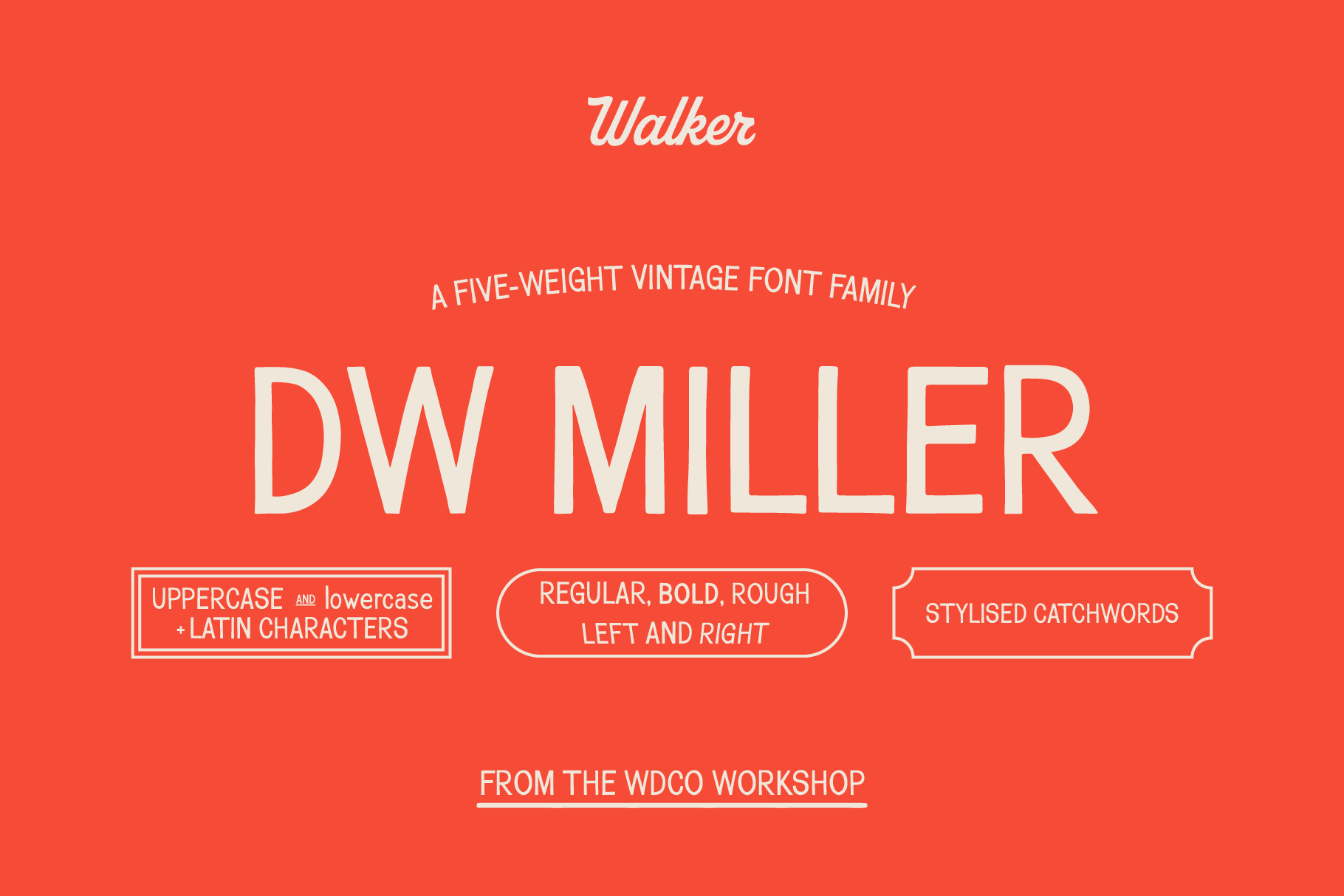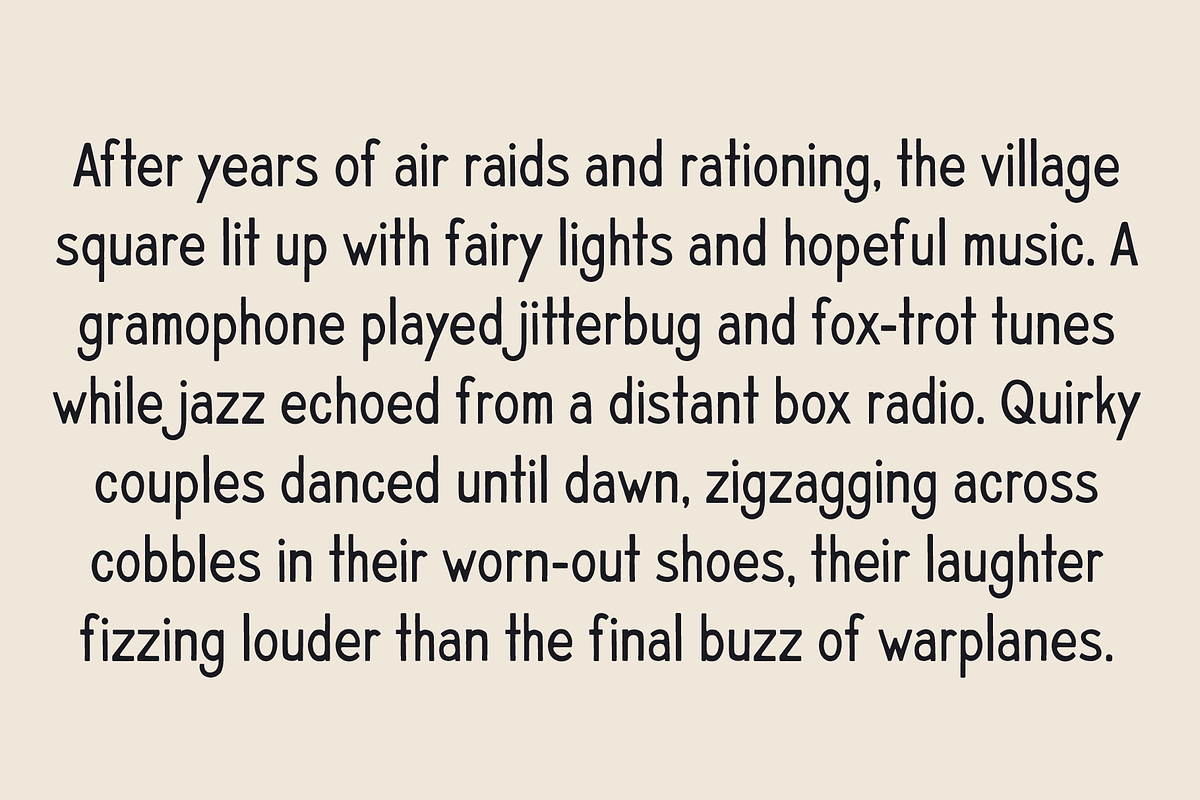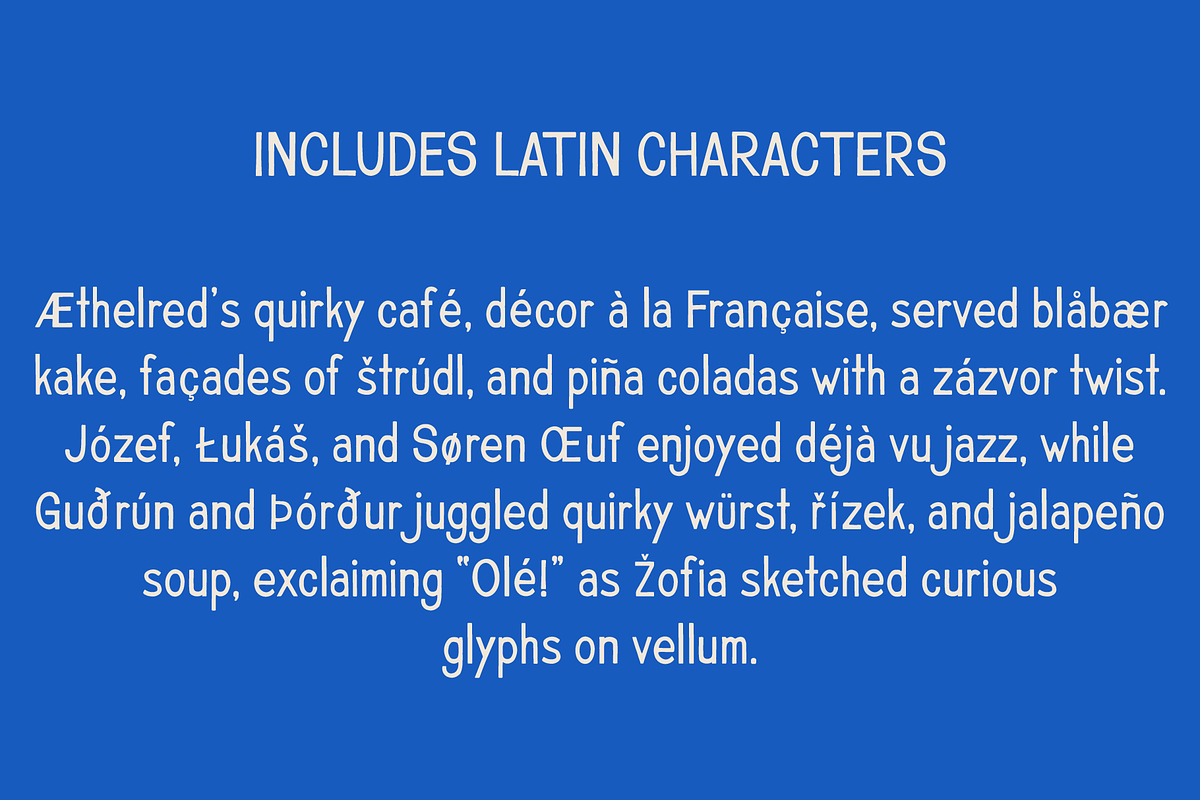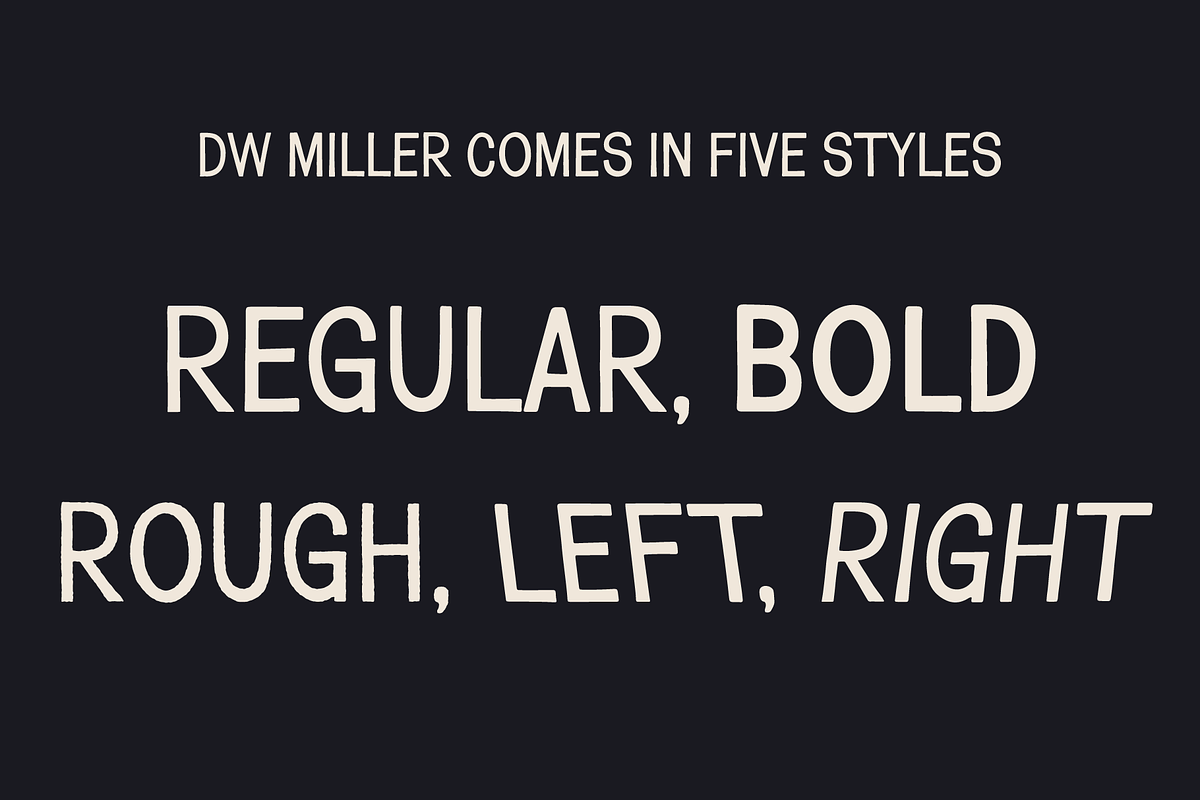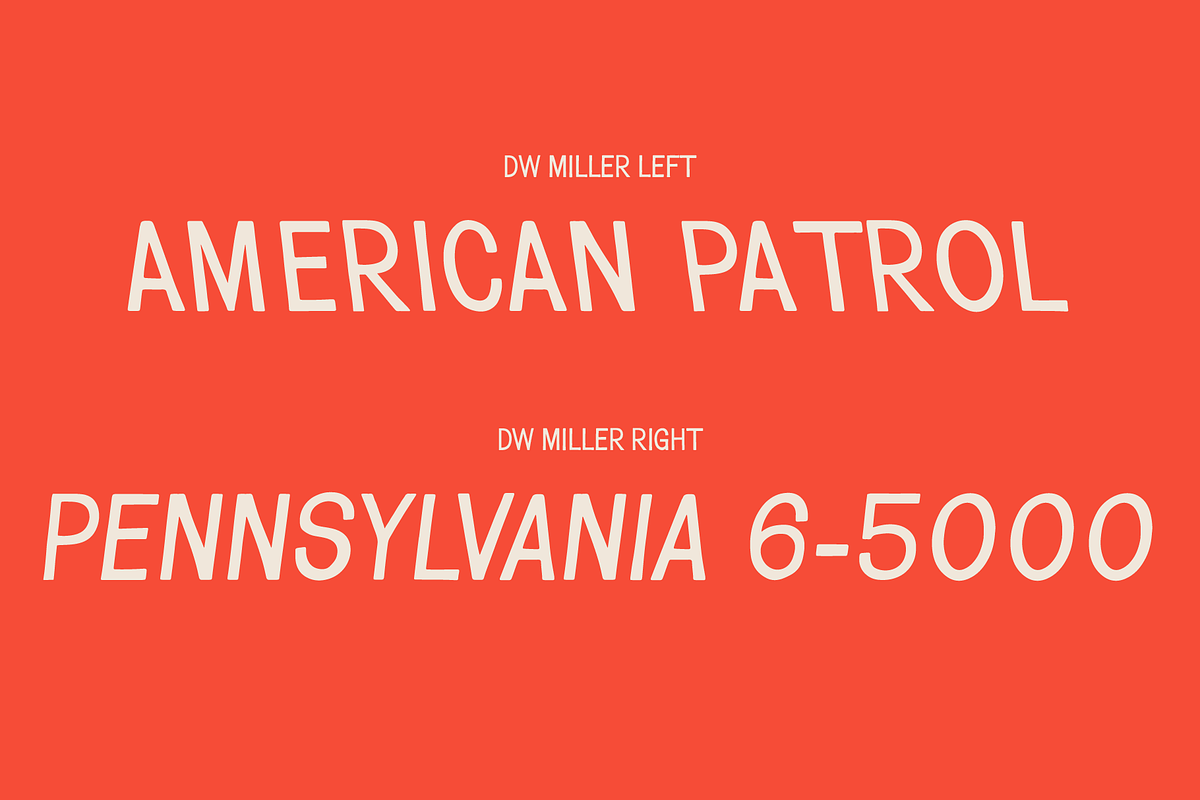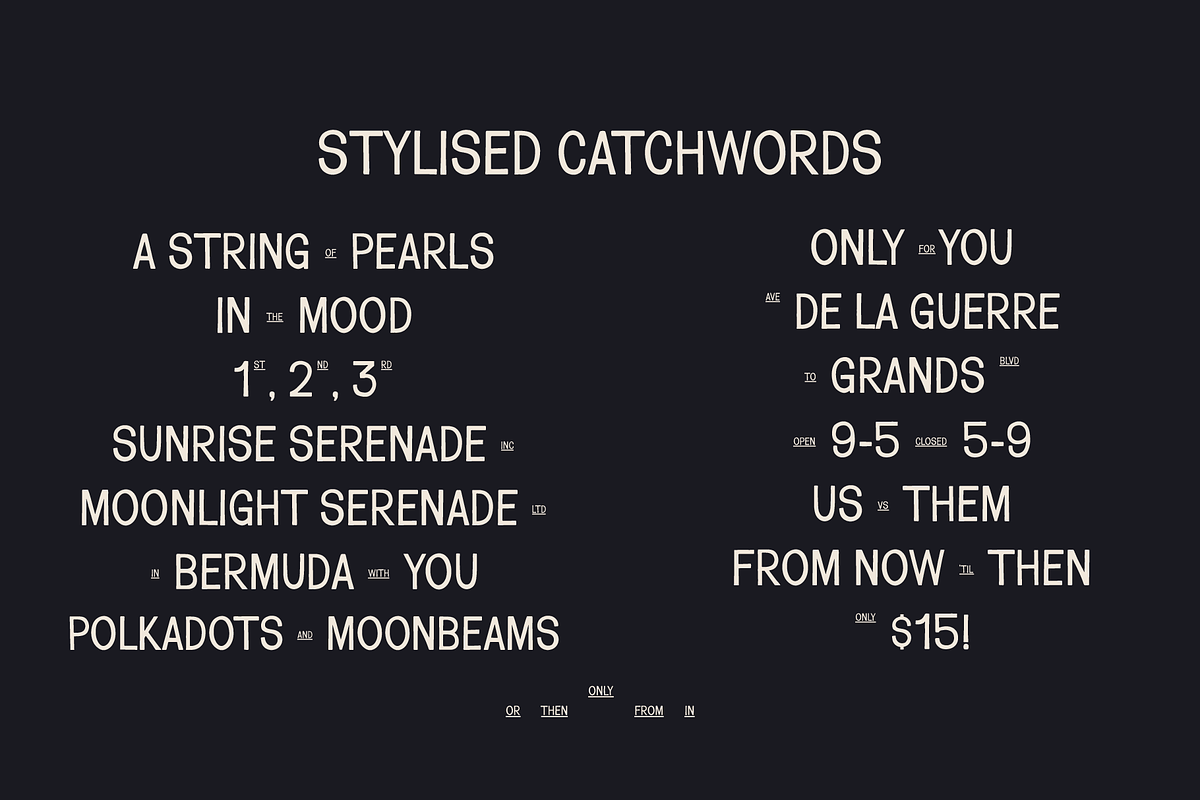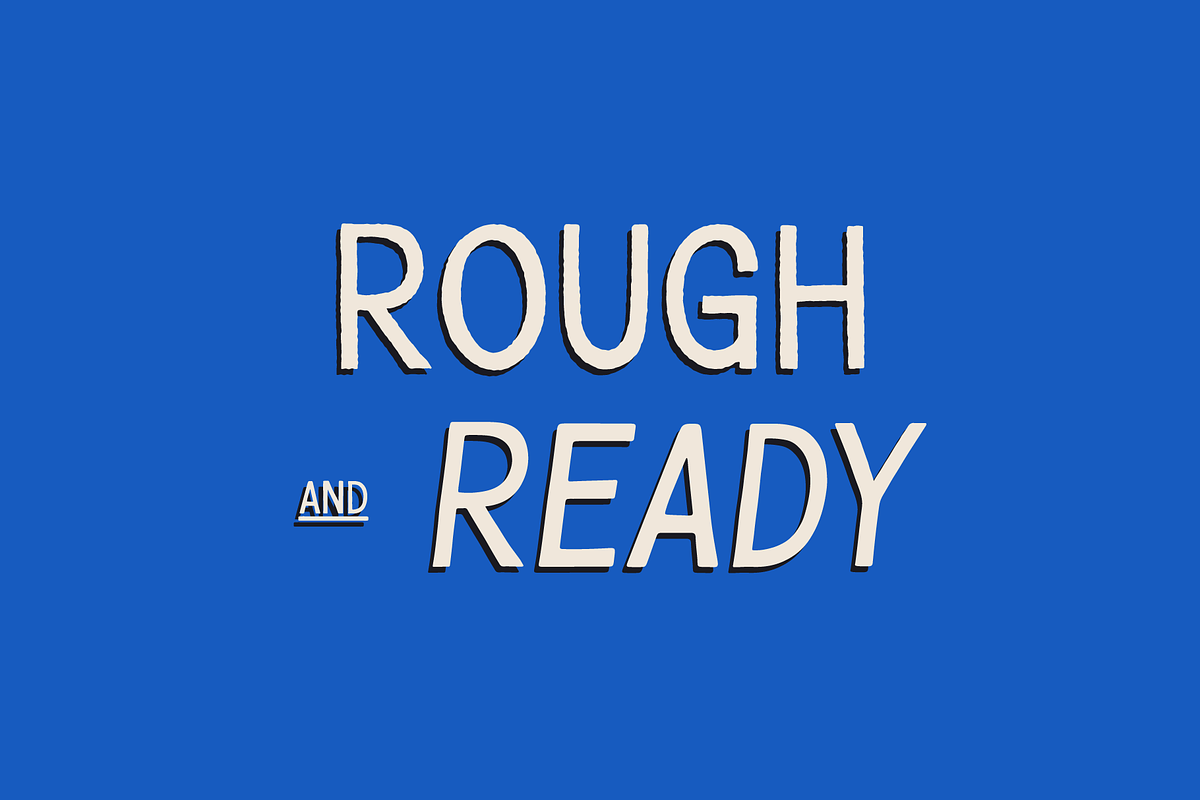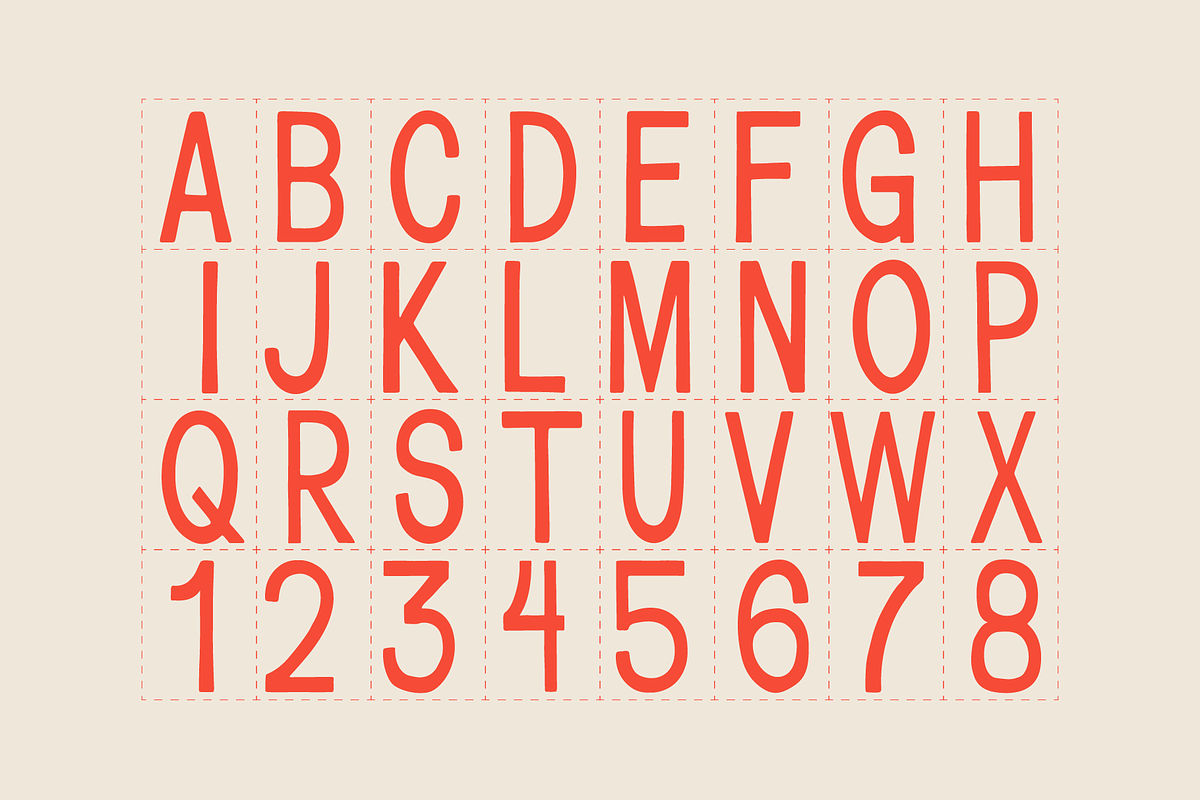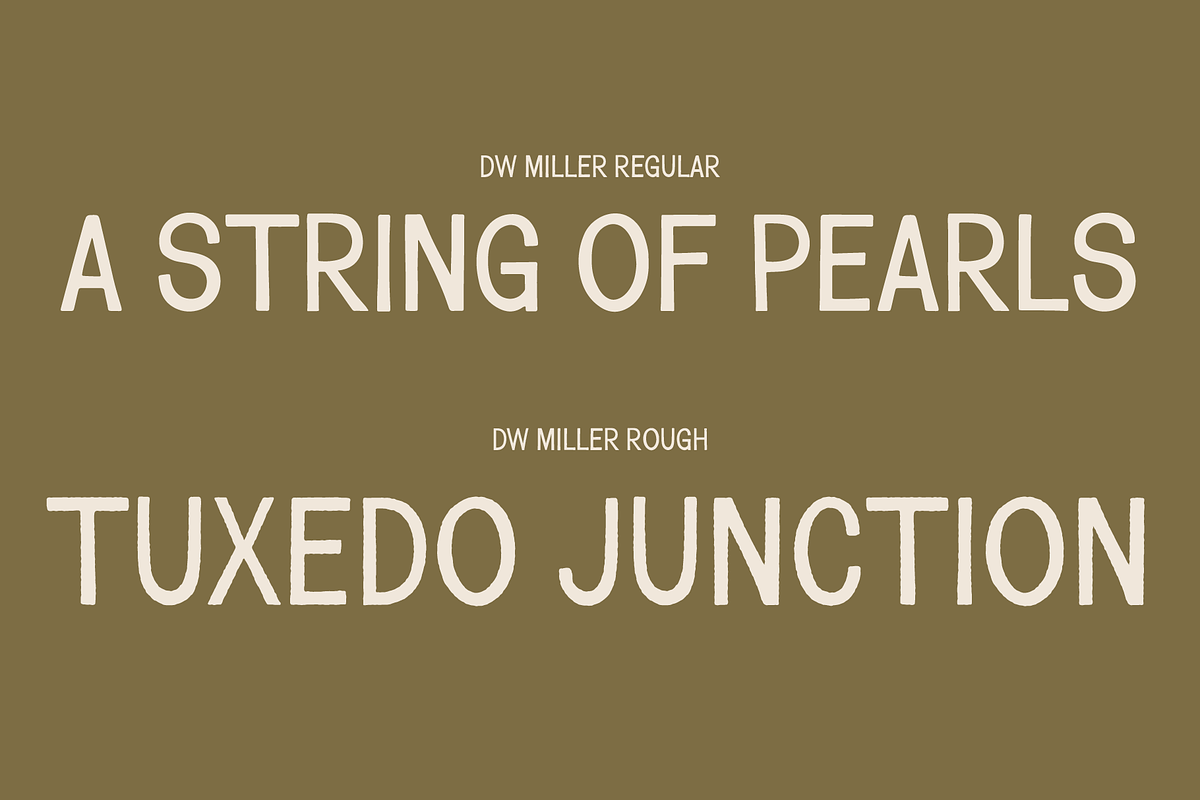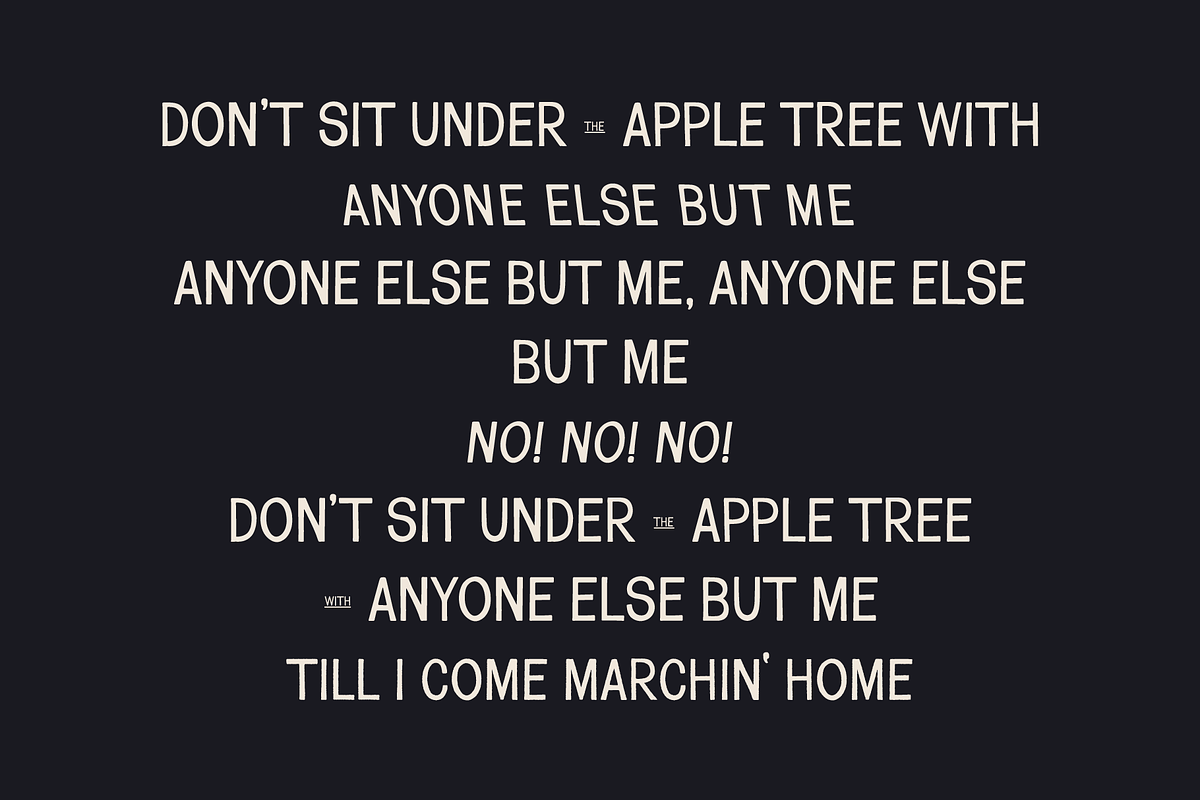
DW Miller Vintage Font Family
DW Miller is the 7th font to be released from the WDCO workshop, and it’s a big ‘un.
Featuring five different styles, Regular, Bold, Rough, Left and Right, all in uppercase and lowercase, as well as latin characters in each style and discretionary glyphs/stylised catchwords, DW Miller stands at nearly 1500 individual glyphs, 288 per style.
Inspired by mid-late 40’s post war lettering, DW Miller is a versatile and utilitarian, yet stylish Sans Serif, with buckets of character and charm. Its sturdy curves and confident forms capture the postwar spirit of industry, jazz clubs, and bustling city streets.
If you’re branding a heritage-inspired clothing label, designing packaging that nods to mid-century craftsmanship, or bringing a touch of vintage character to a modern identity, DW Miller delivers timeless charm with a distinctive edge.